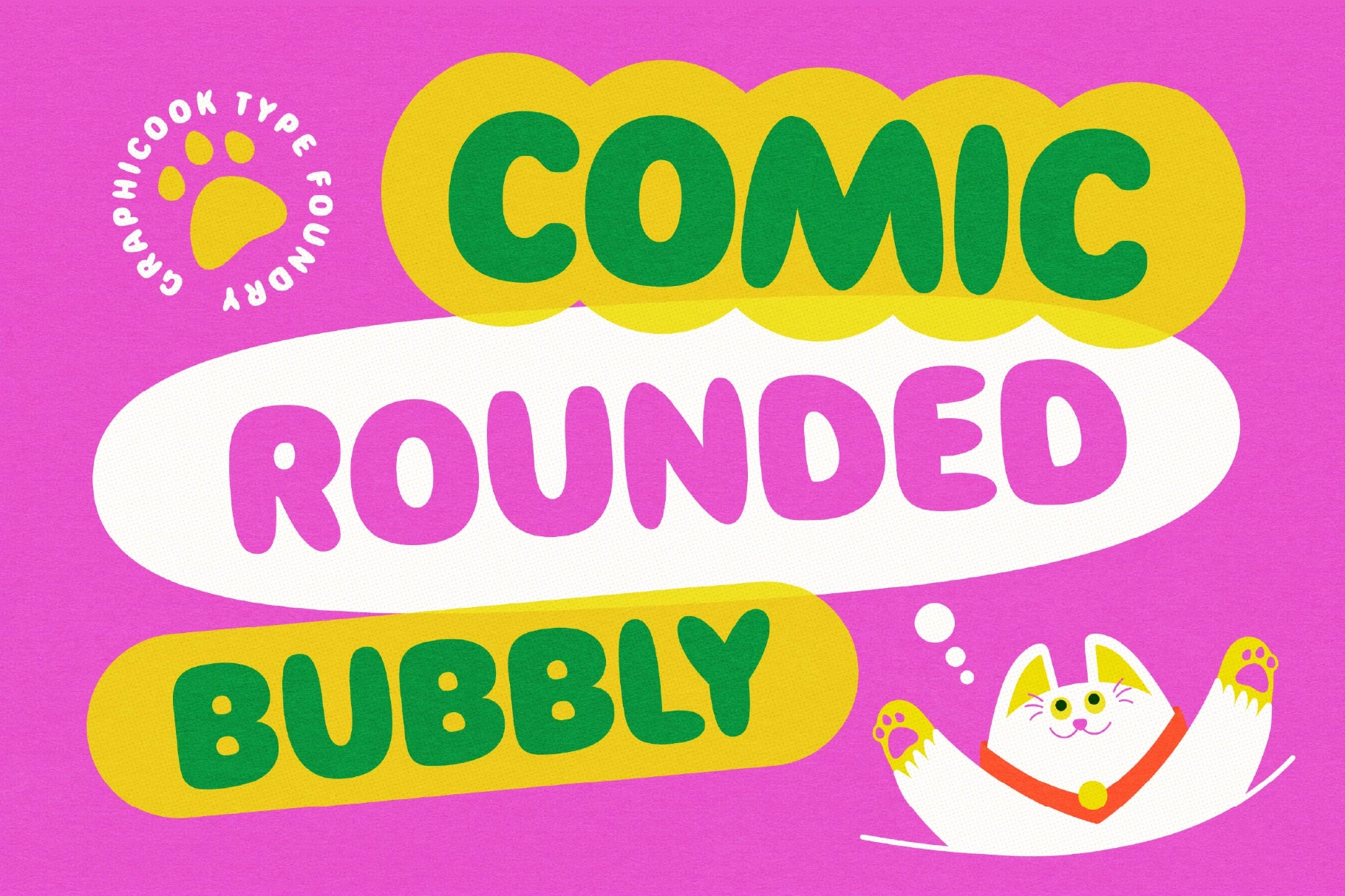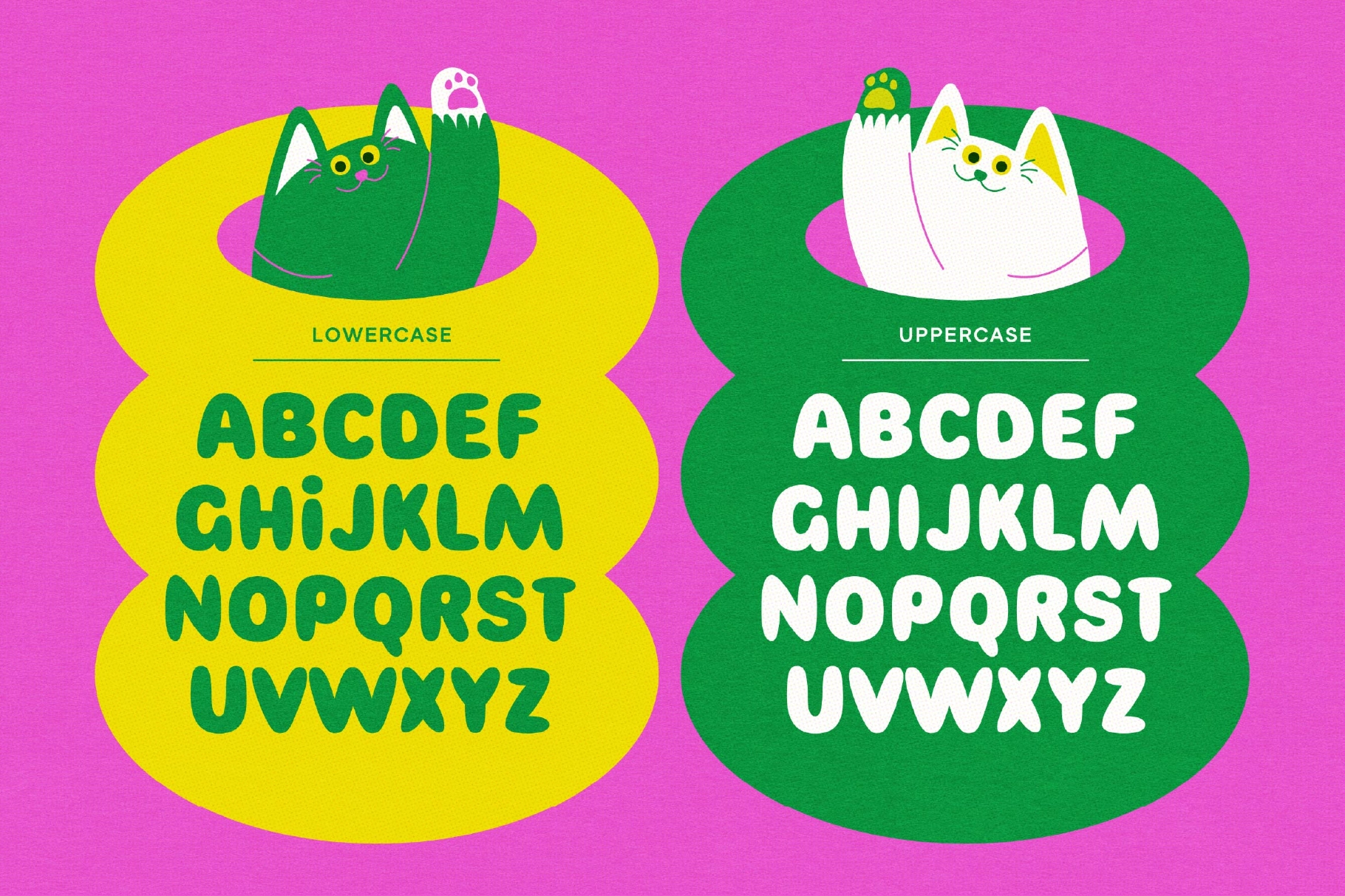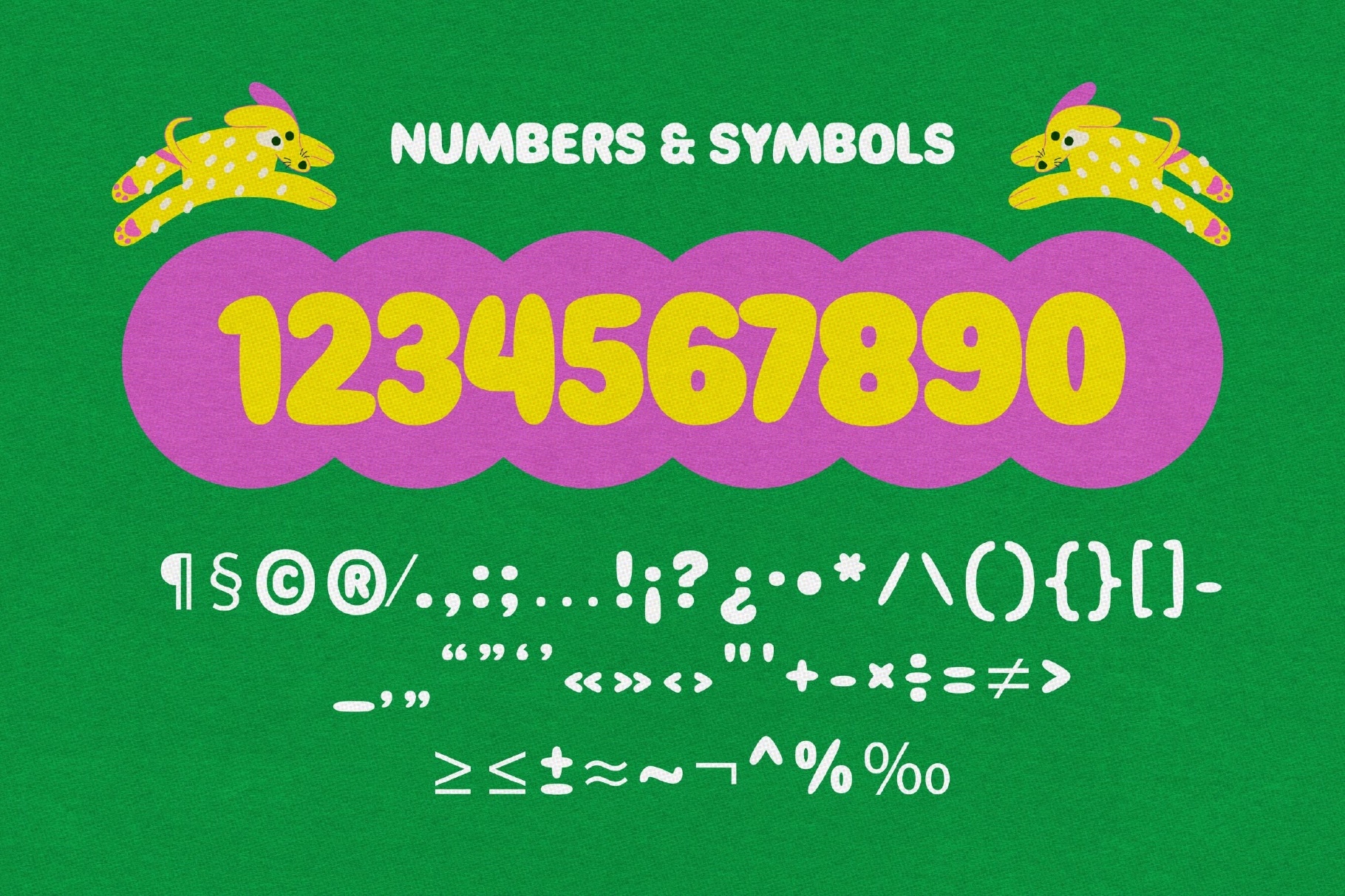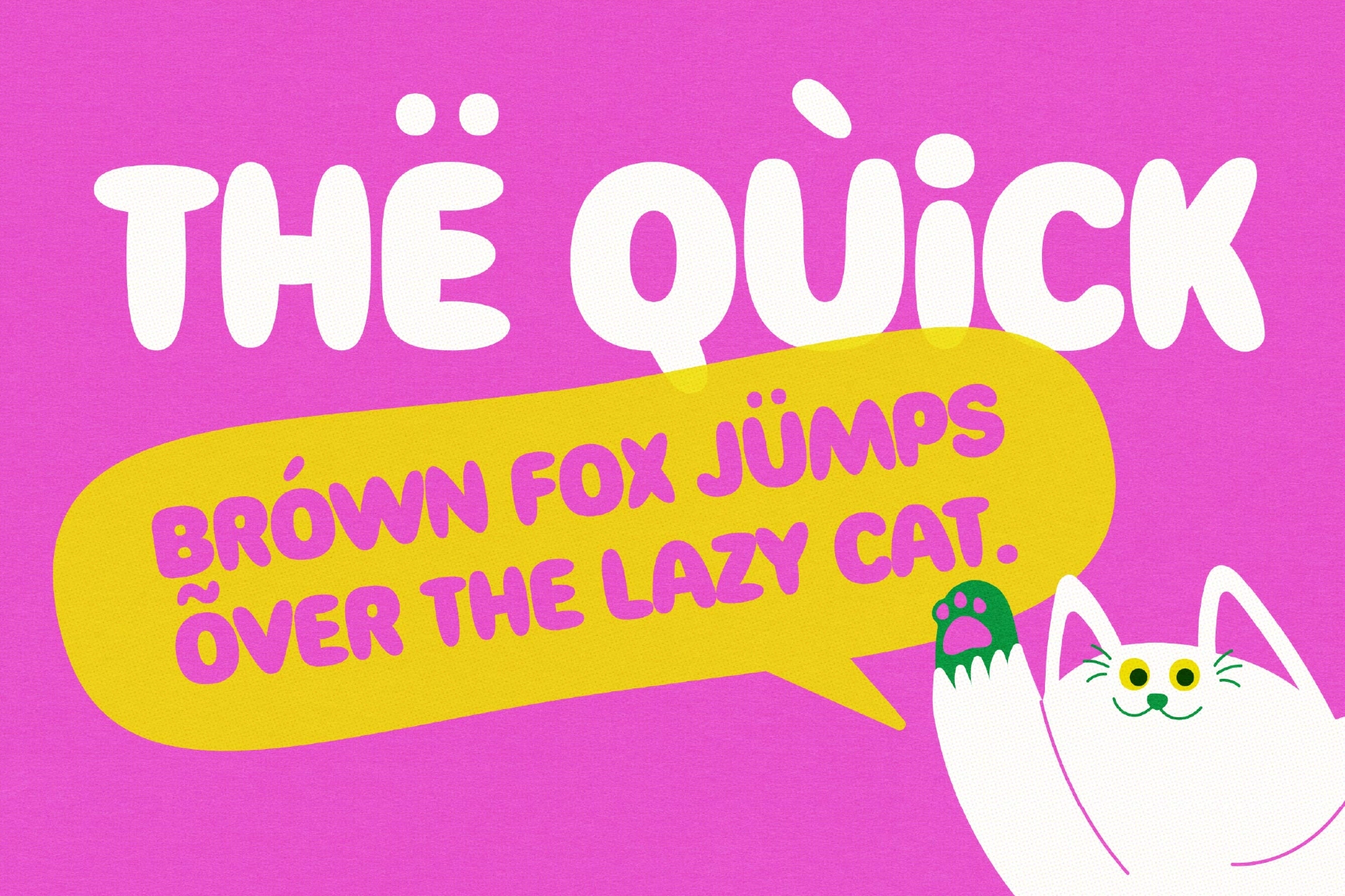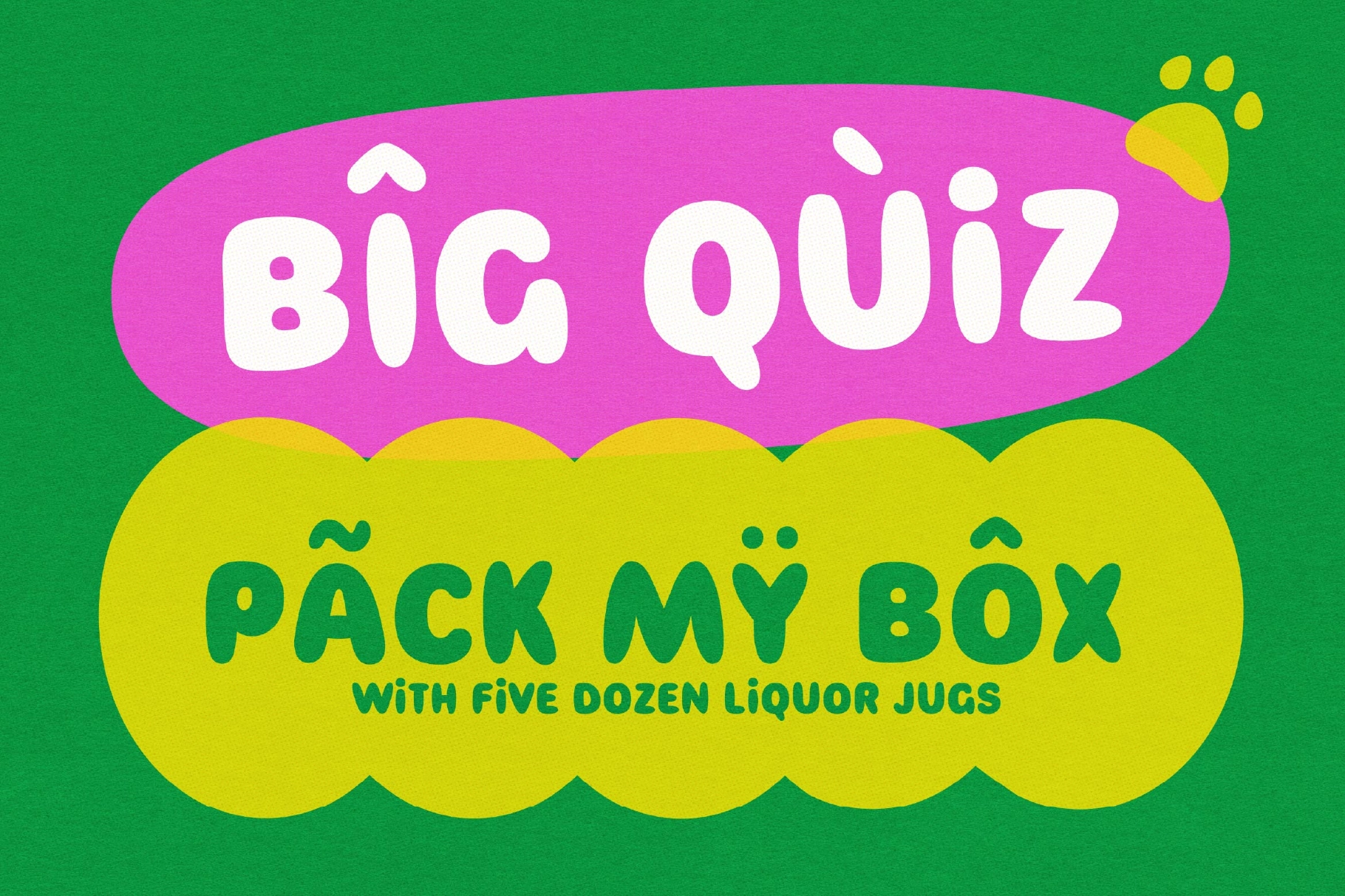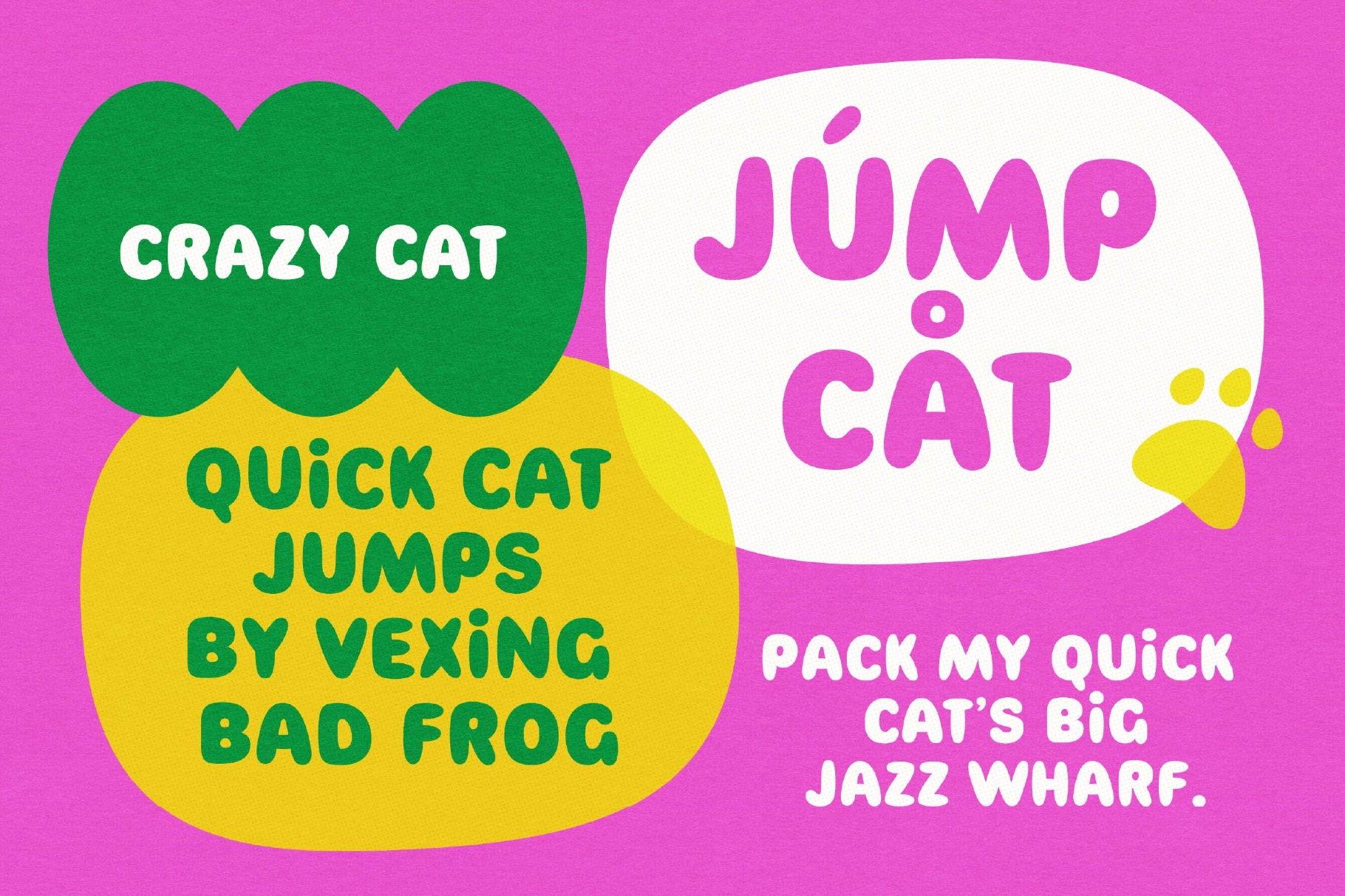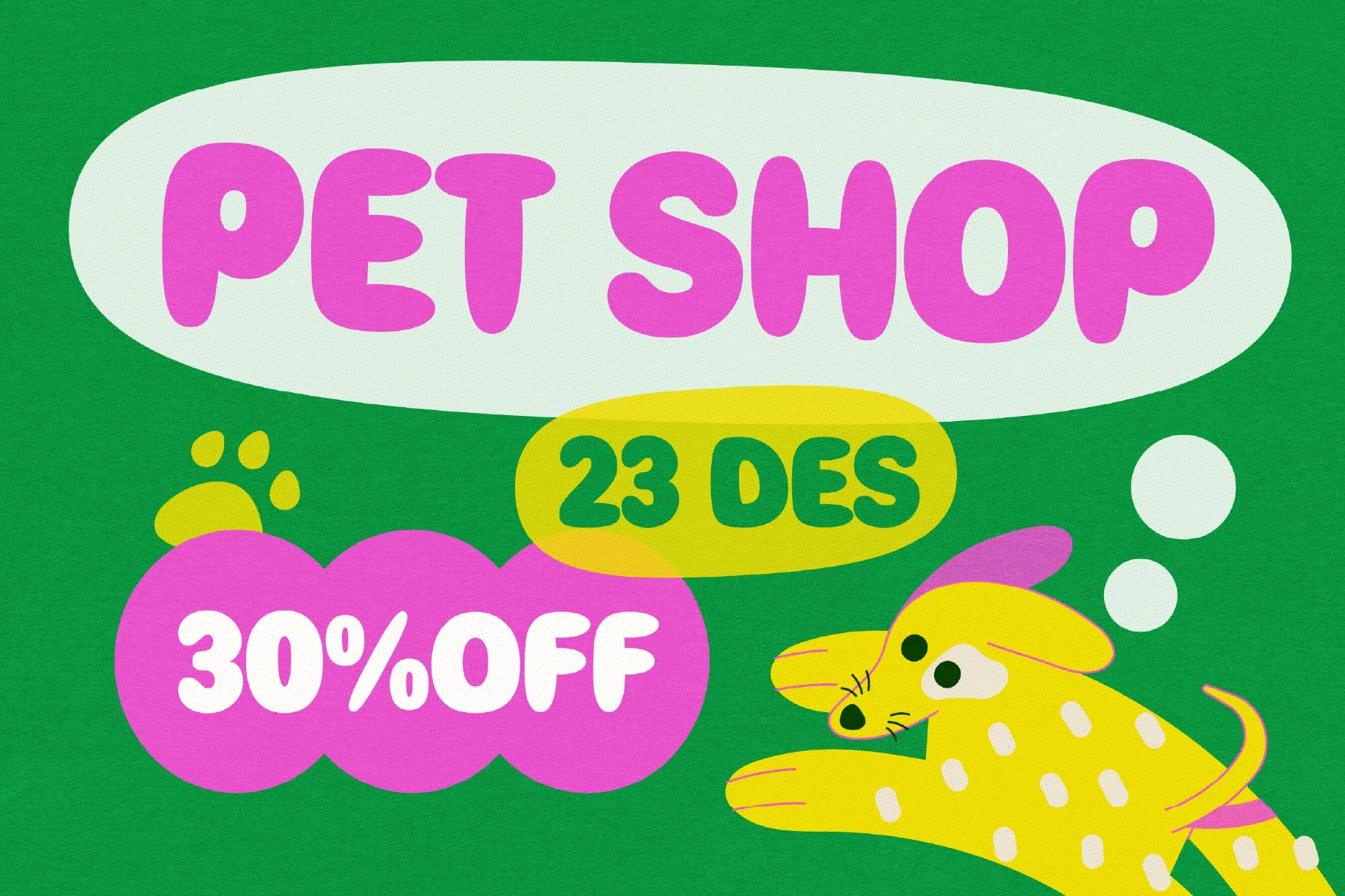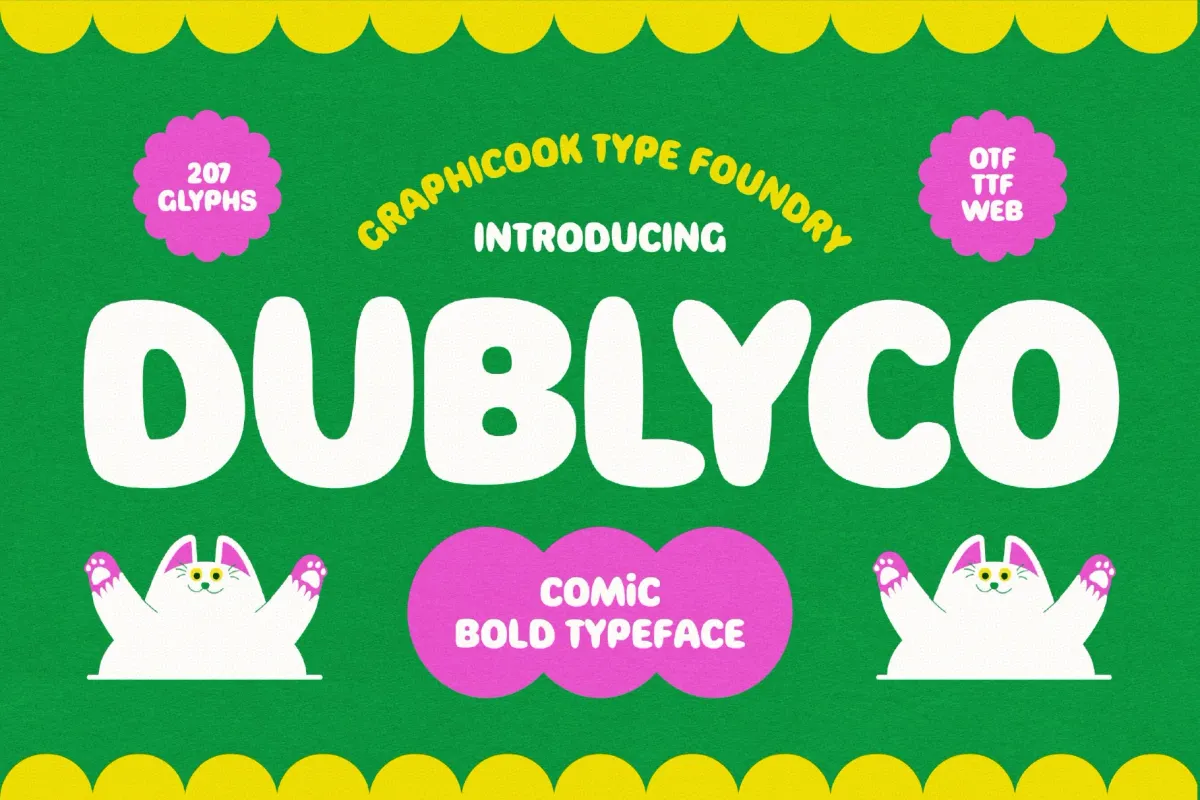
Dublyco
Dublyco is a bold, rounded font with bubbly, smooth shapes that radiate a fun and casual energy. Perfect for branding, posters, and designs with a lighthearted, playful aesthetic.